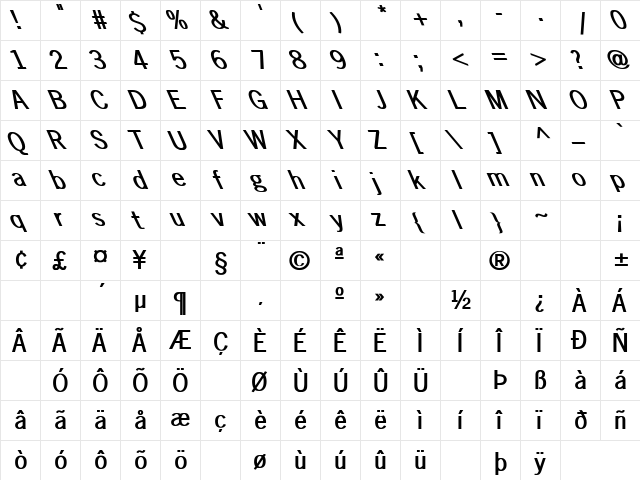
News Gothic Leftie Bold
Design Context for News Gothic Leftie Typeface
News Gothic Leftie takes a clean, functional approach — its unadorned letterforms prioritise legibility and work reliably across screen and print environments. Its bold stroke weight gives it real presence on the page.
Well-suited to navigation labels, product packaging, and anywhere legibility at scale is essential.
Font Pairing: Use News Gothic Leftie for headlines alongside a lighter-weight sans or serif for body copy to establish clear visual hierarchy.
Pro Tip: Use News Gothic Leftie for UI labels, navigation, and short-form body copy where clean legibility is the priority.